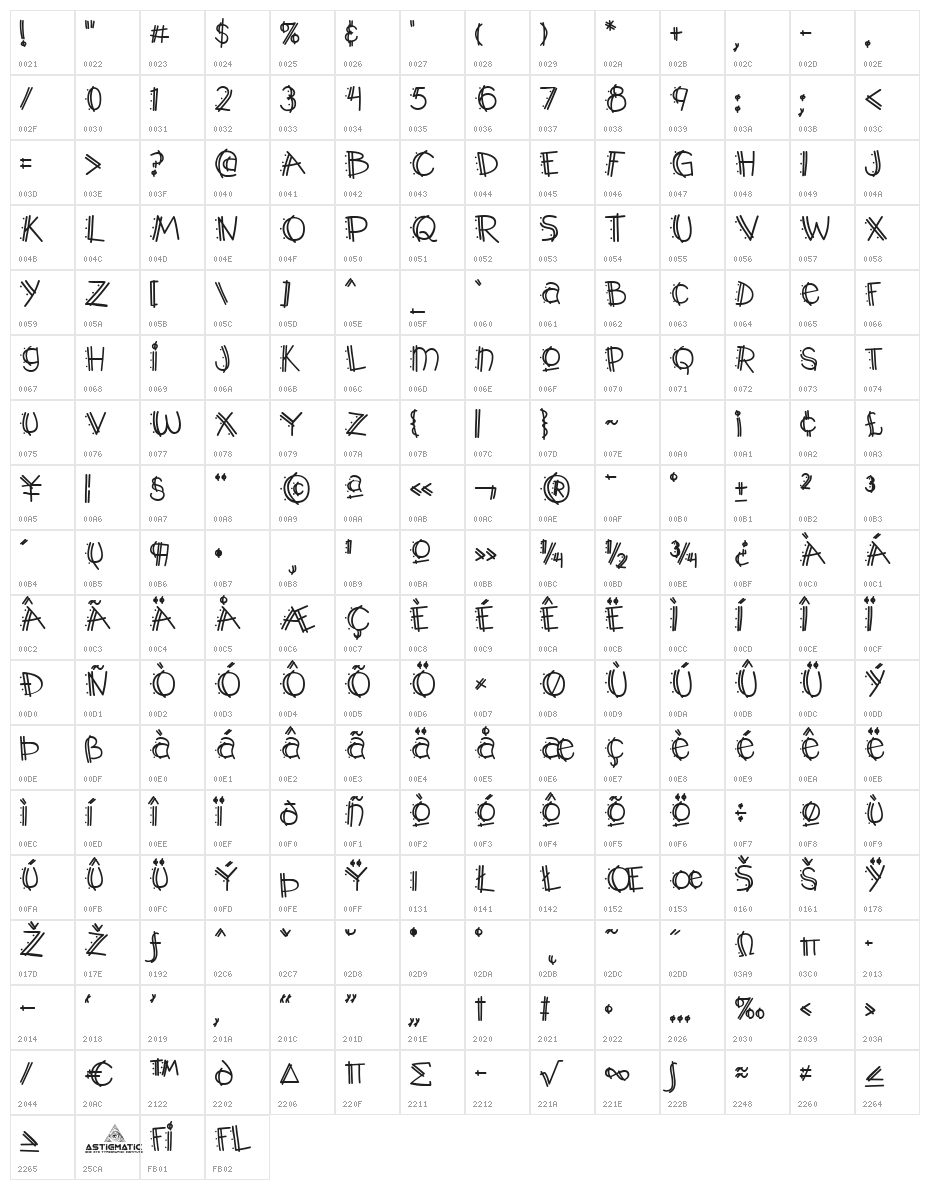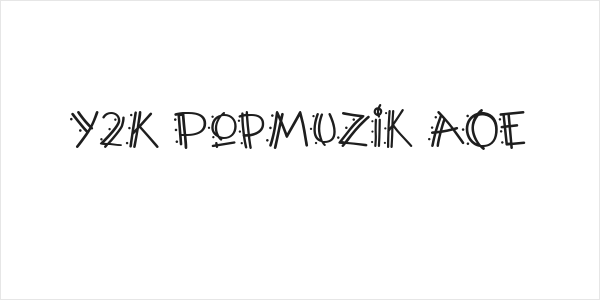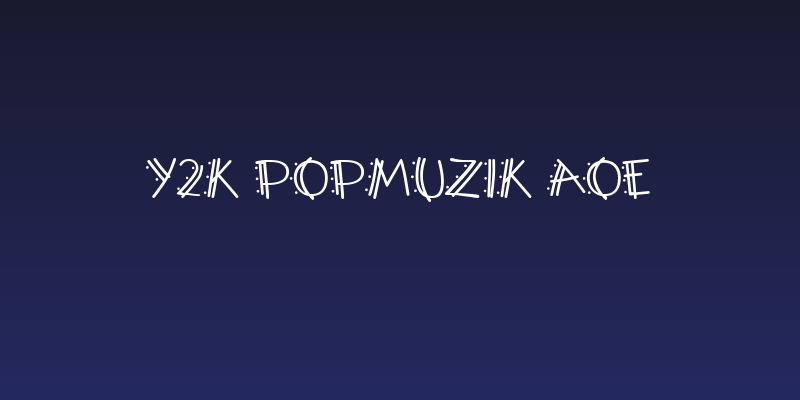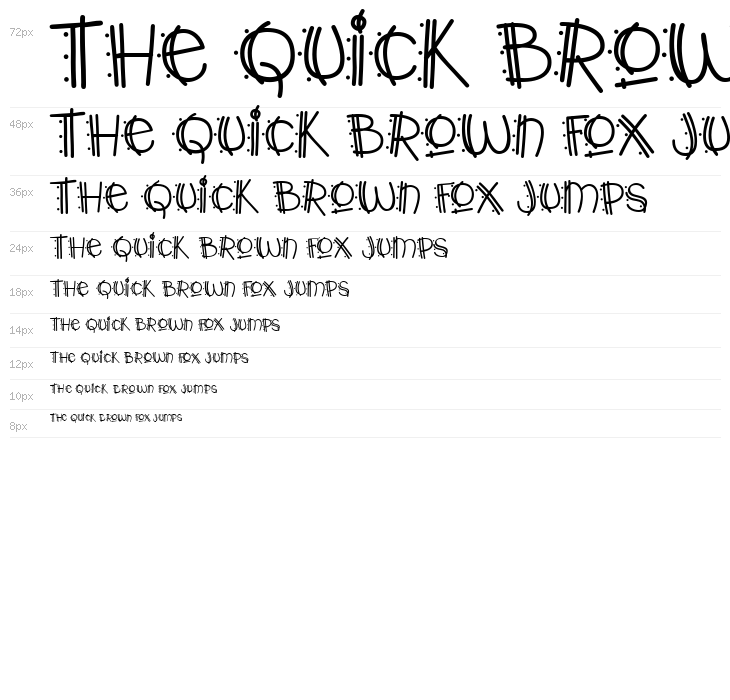
Y2K PopMuzik AOE Font
Y2K PopMuzik AOE Description
This font features a playful and whimsical design, characterized by its unique dotted accents and irregular line strokes. Each character is outlined with small dots, giving it a distinct, almost musical rhythm. The letters are slightly slanted, adding a dynamic and energetic feel. The overall style is reminiscent of a retro, pop culture aesthetic, making it ideal for projects that require a fun and lively touch. The numbers and special characters maintain the same playful theme, ensuring consistency across all text elements.
| Proposed Projects | Ideal for music-themed posters, children's book covers, party invitations, and playful branding projects. |